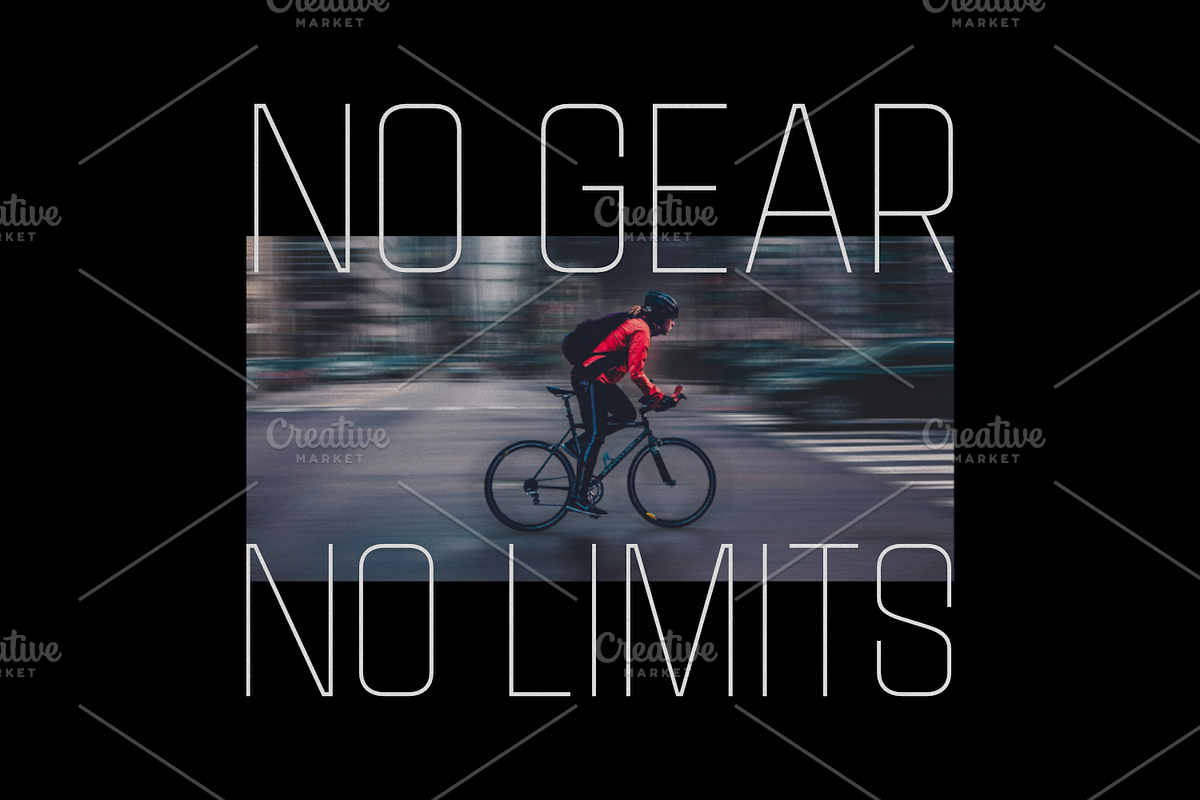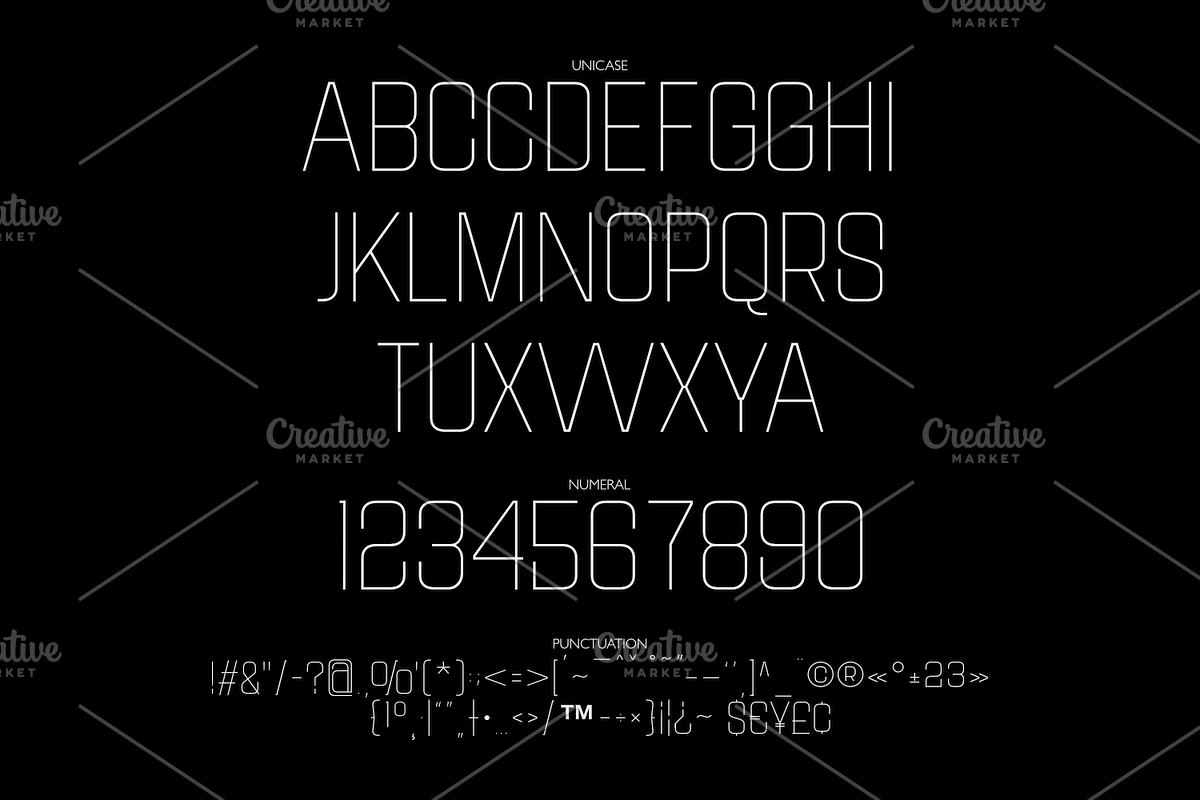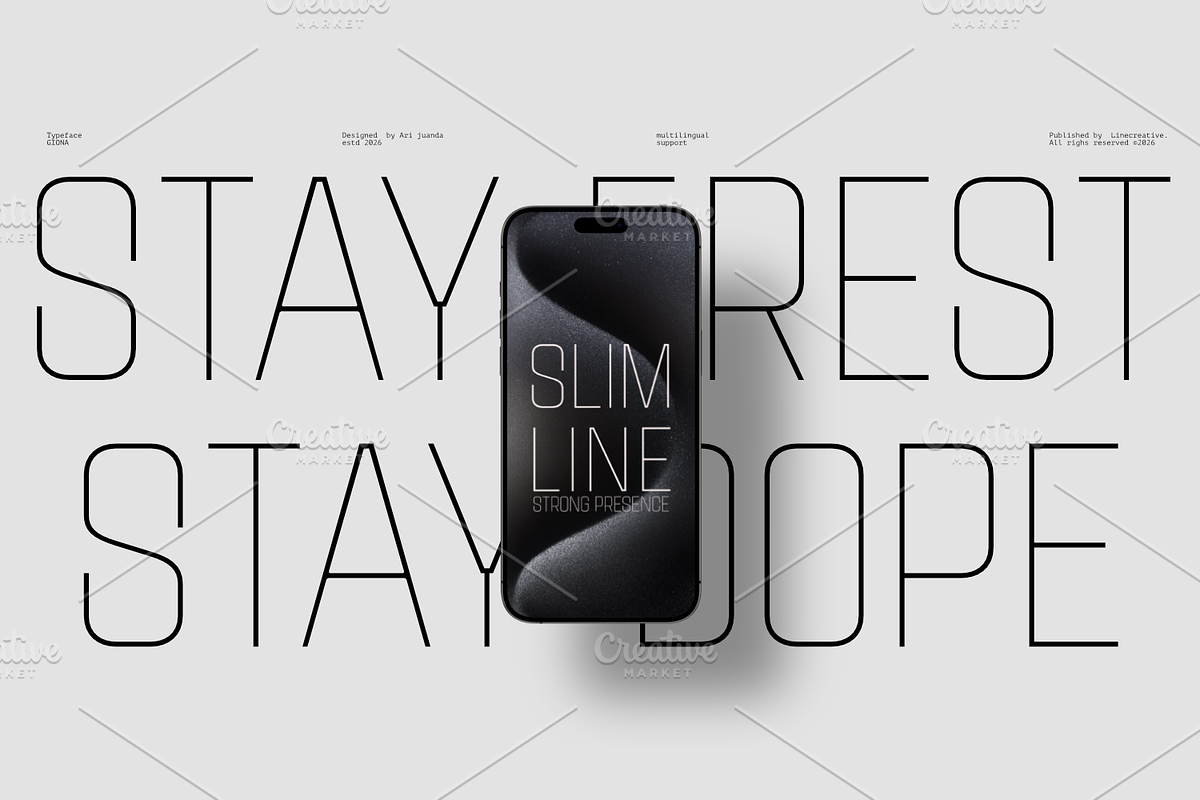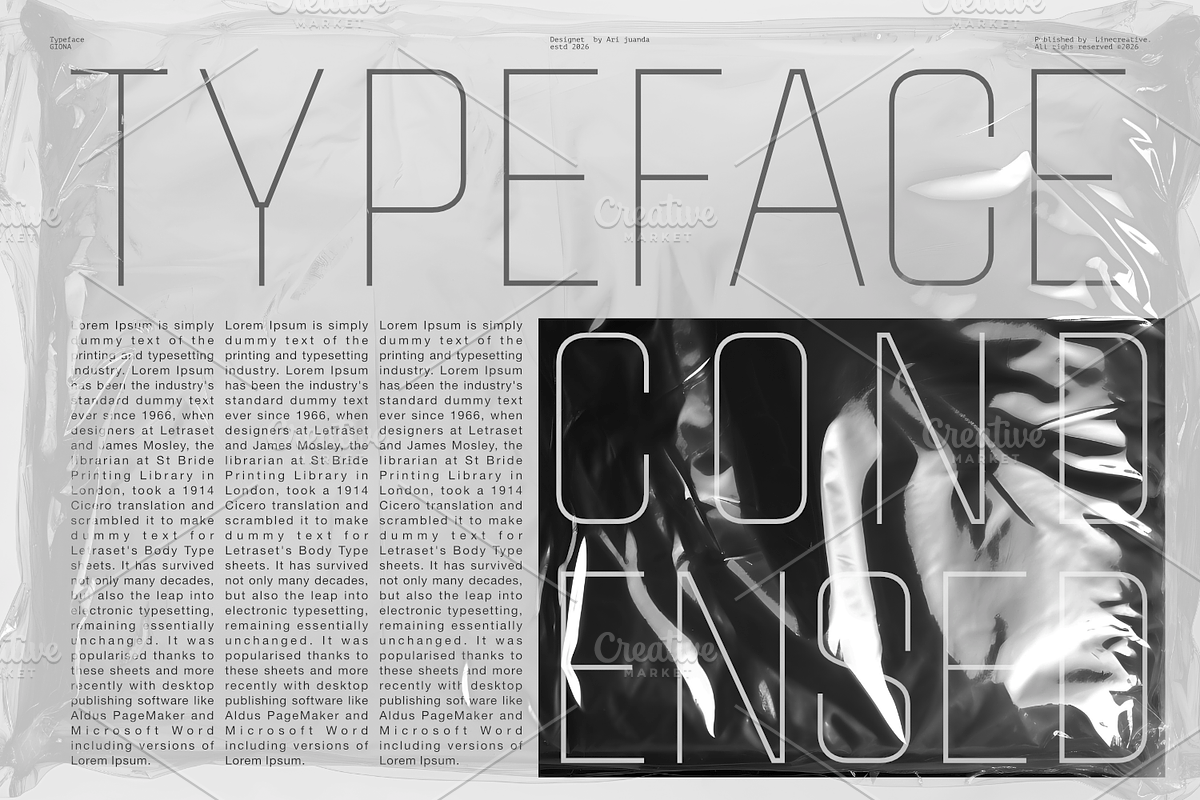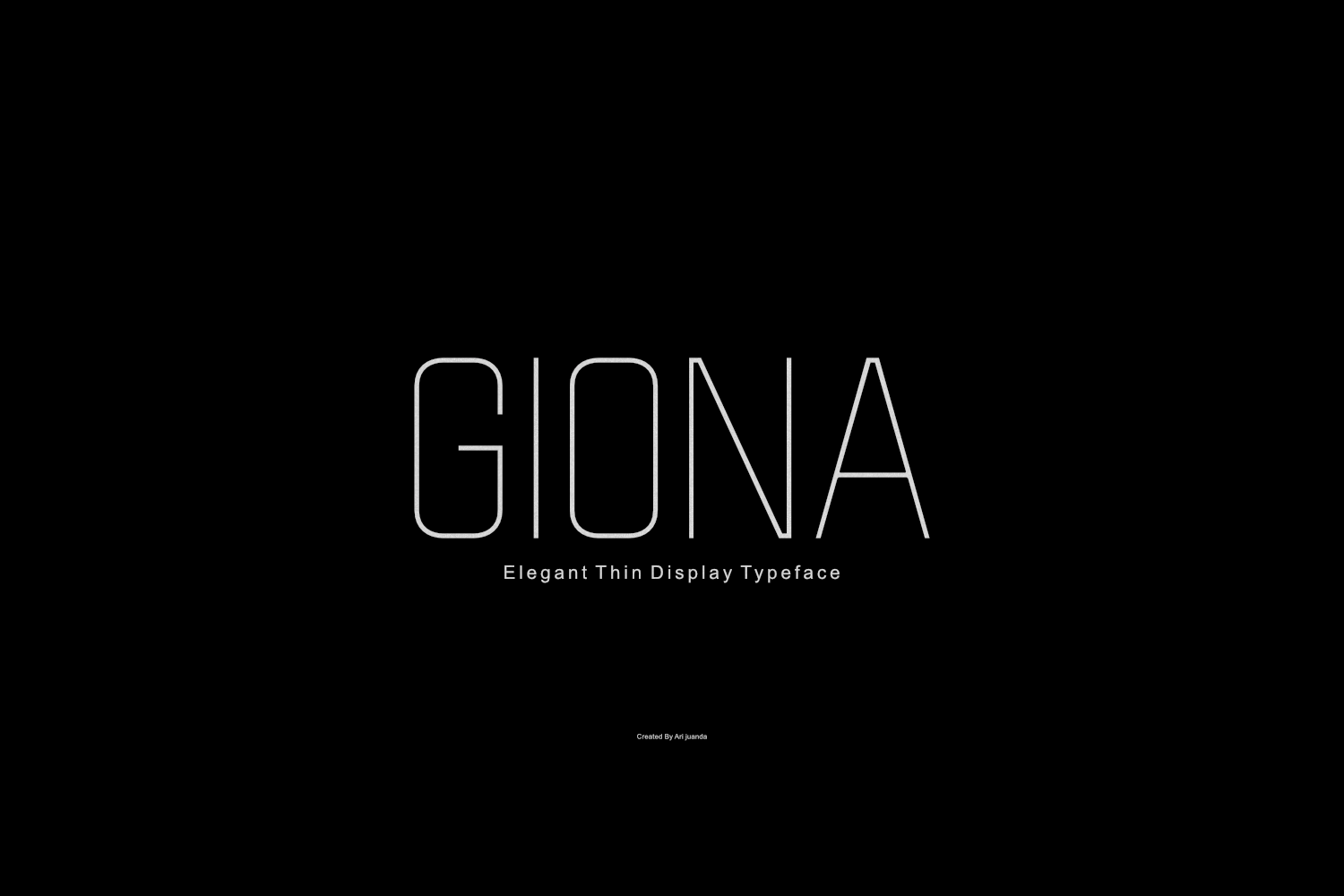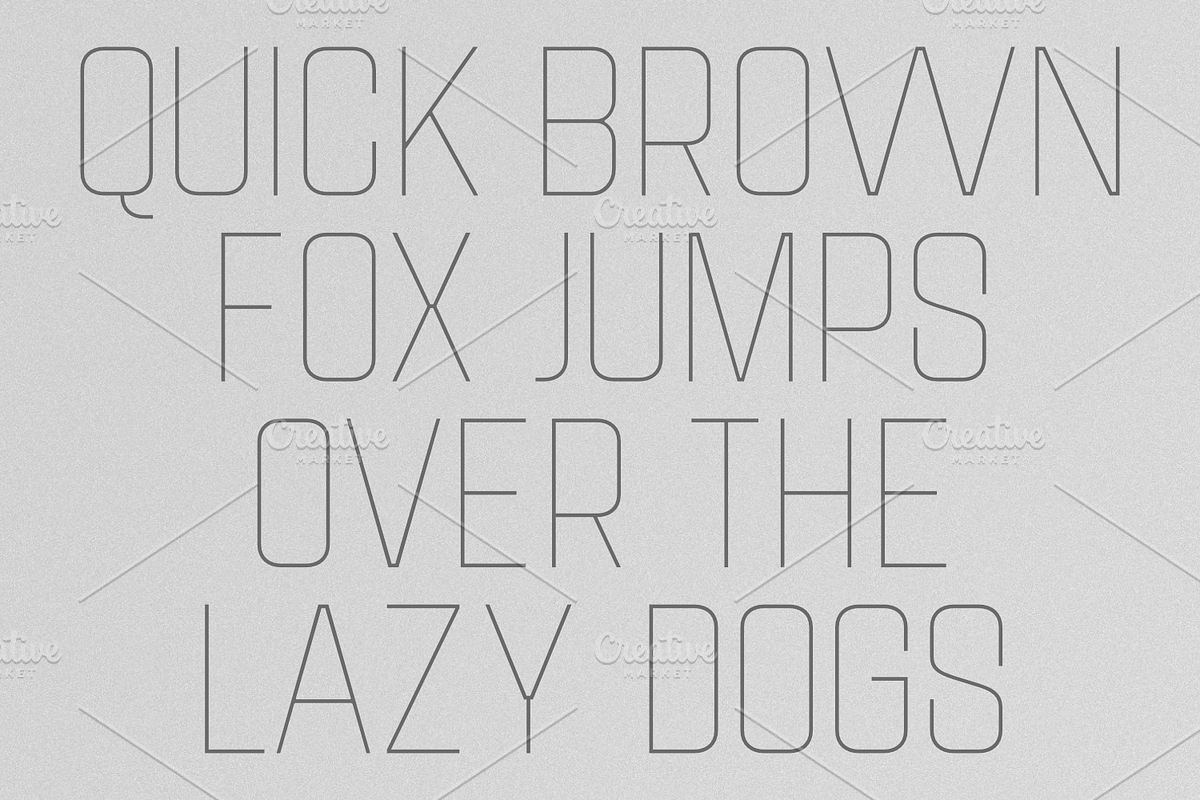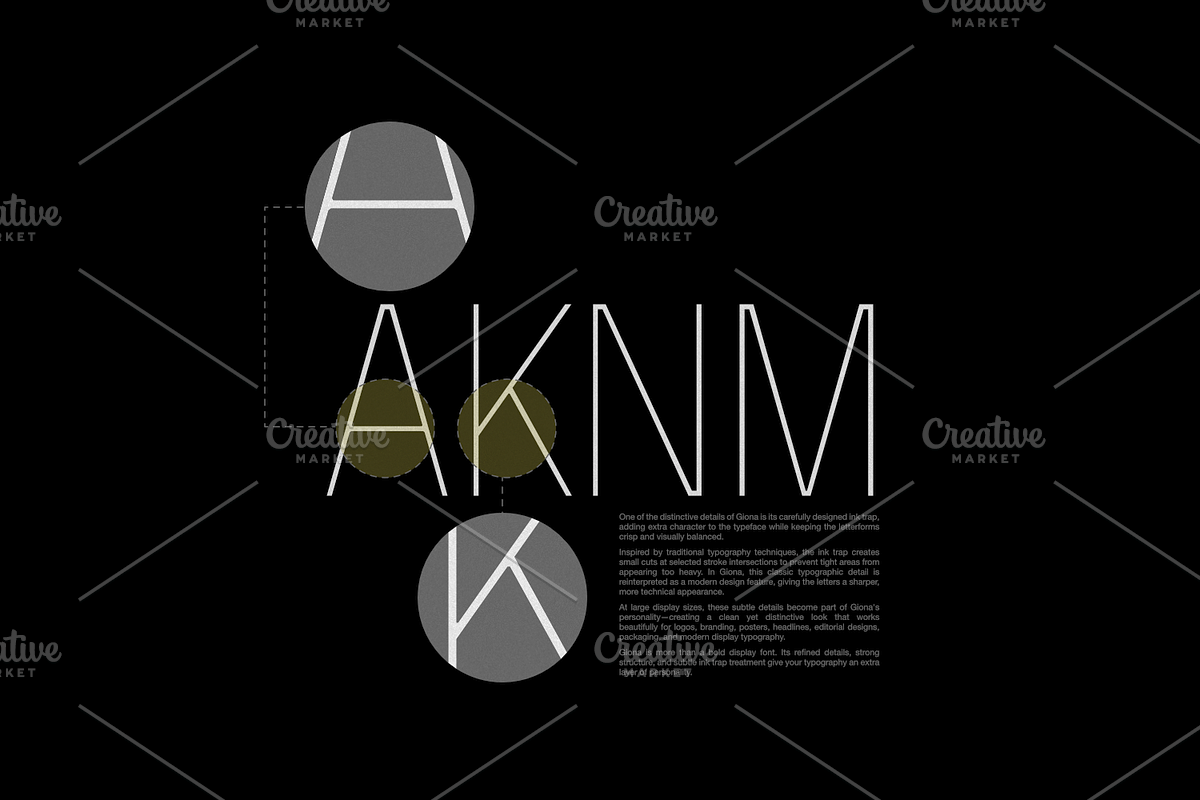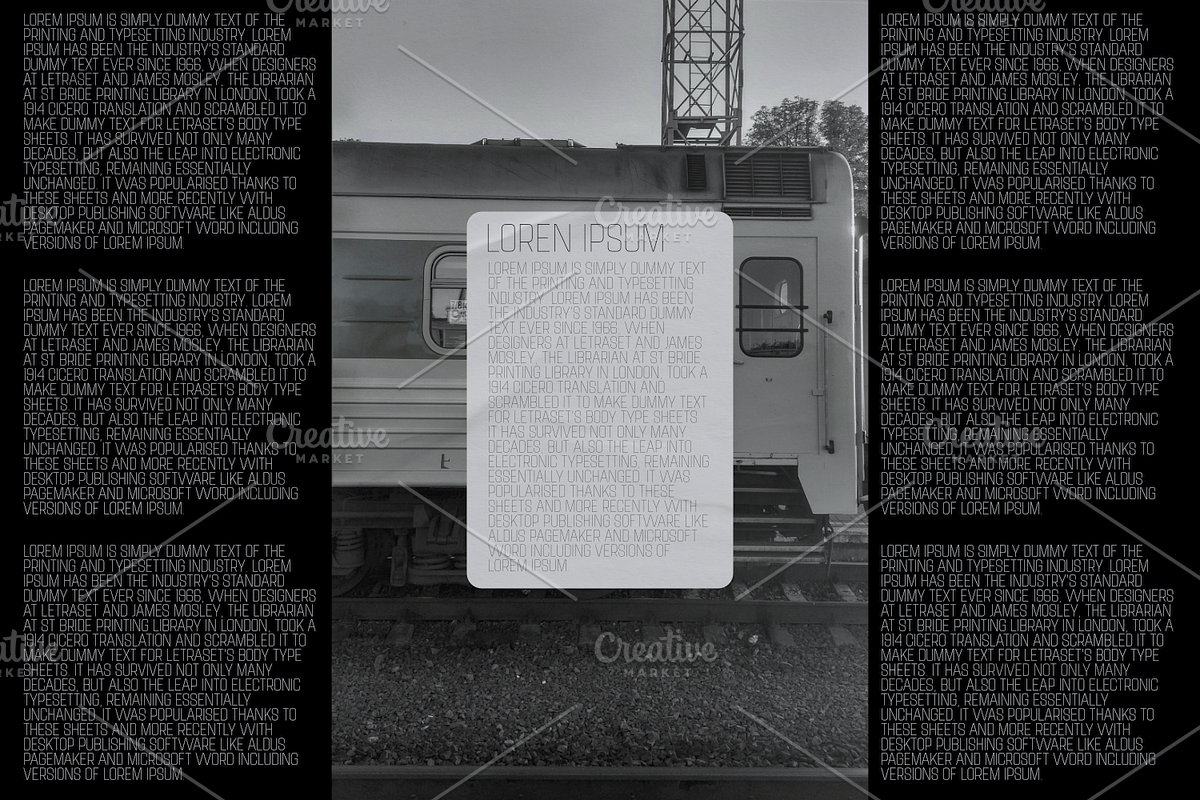
Giona – Elegant Thin Condensed Font
Meet Giona, an elegant thin condensed display font designed for modern typography, minimalist branding, editorial layouts, fashion projects, and sophisticated visual identities. With its slender monoline construction, refined proportions, and distinctive geometric character, Giona creates a clean and contemporary look while maintaining a strong visual presence.
Giona features a thin and narrow display style that allows typography to feel lightweight, spacious, and elegant. Its carefully designed letterforms work beautifully at large sizes, making it ideal for headlines, titles, posters, logos, packaging, and other projects where typography needs to communicate a refined and modern aesthetic.
Elegant Thin Display Typeface
Condensed / Narrow Proportions
Clean Monoline Construction
Distinctive Ink Trap Details
Uppercase & Lowercase (Unicase)
Superscript Characters
Ordinal Characters
Latin Character Support
Modern Geometric Letterforms
Designed for Professional Display Typography